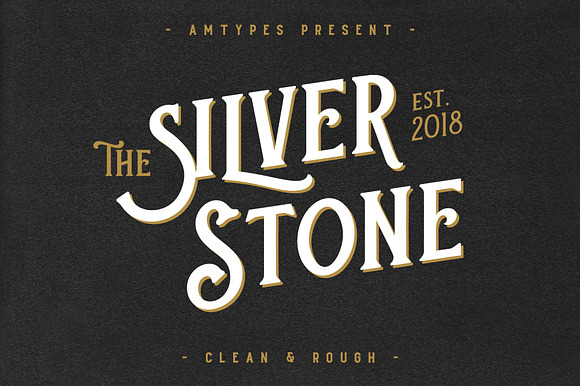
Silver Stone Font + Bonus
Silver Stone is a new vintage display and inspired by vintage packaging, vintage book cover, and vintage tins. This font is perfect for the vintage design logo, branding or product packaging.
Standard Uppercase & Lowercase with special uppercase letters
- Standard Uppercase & Lowercase with special uppercase letters
- Number & Punctuation
- Accented Characters
- Silver Stone Regular
- Silver Stone Rough